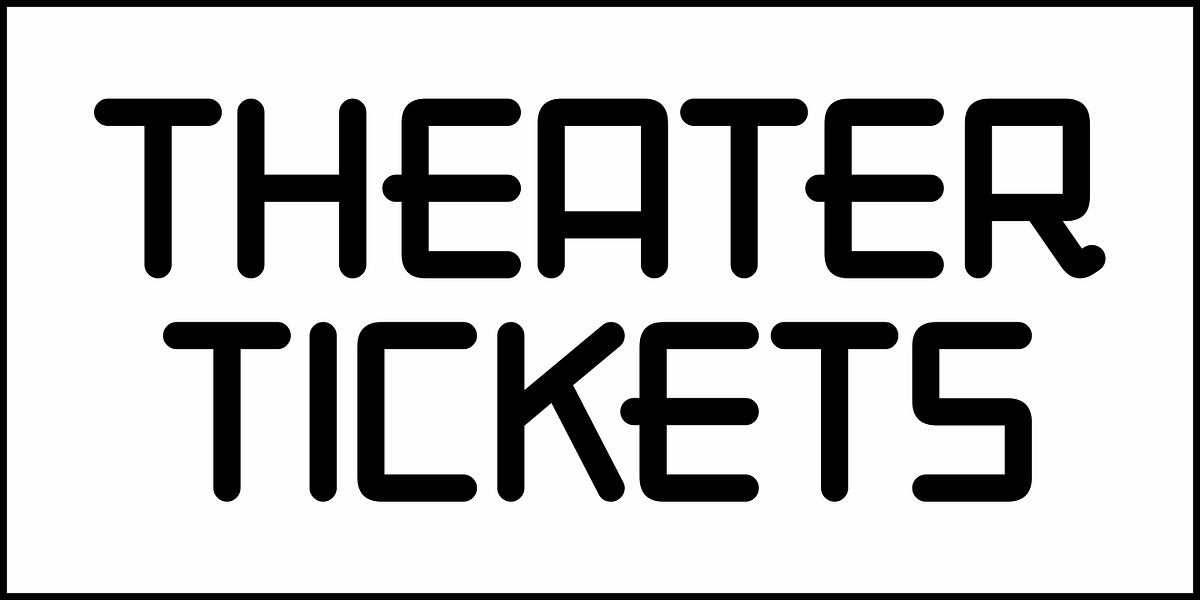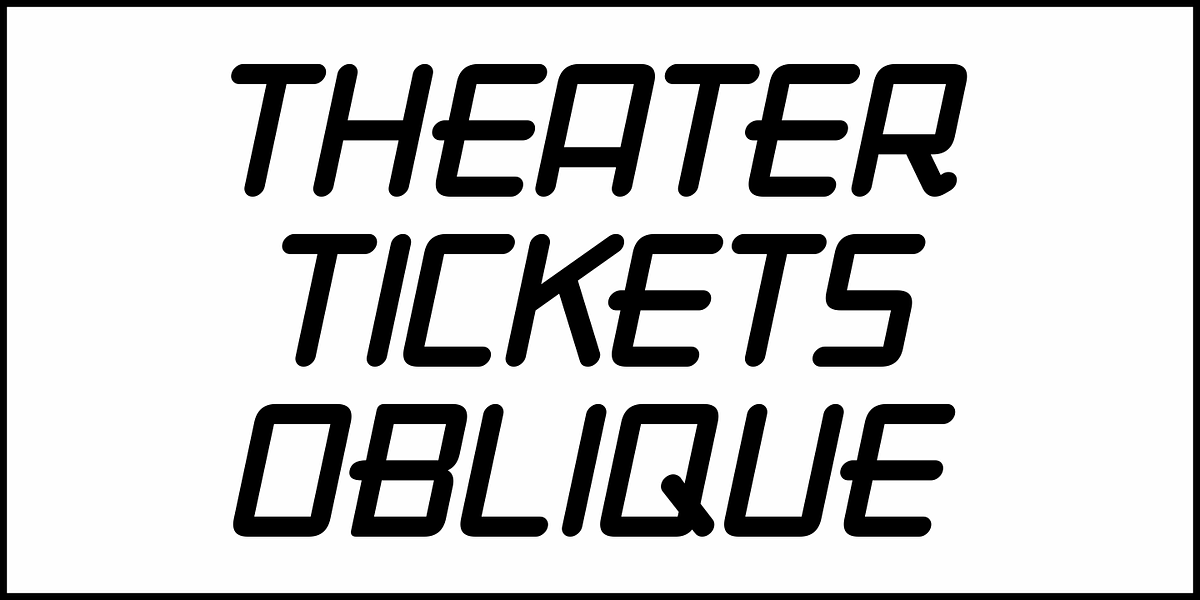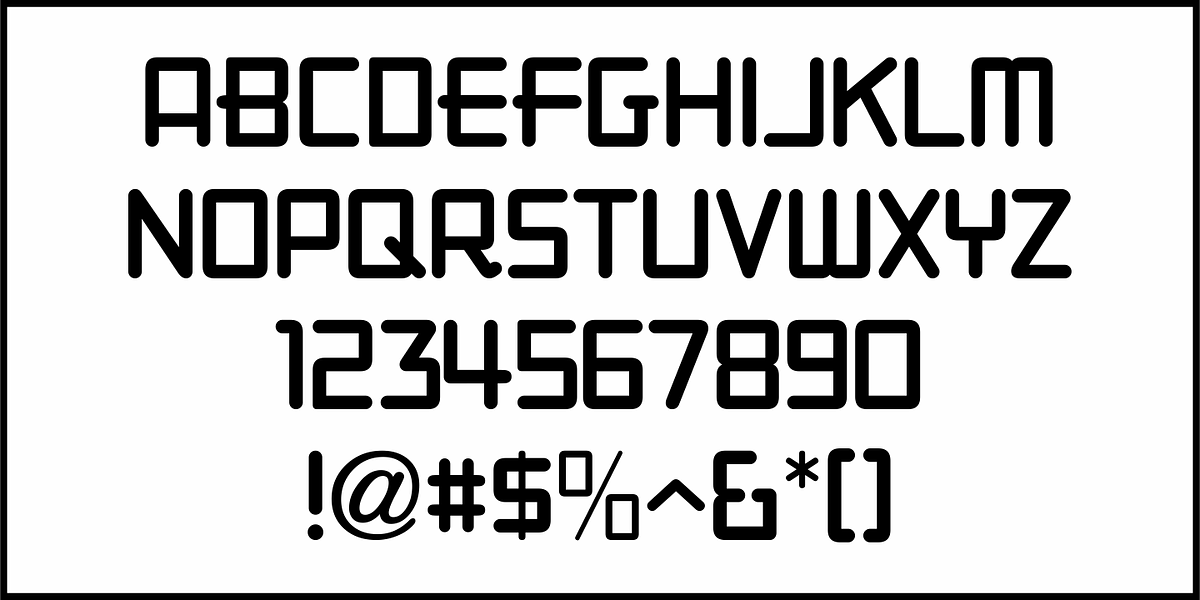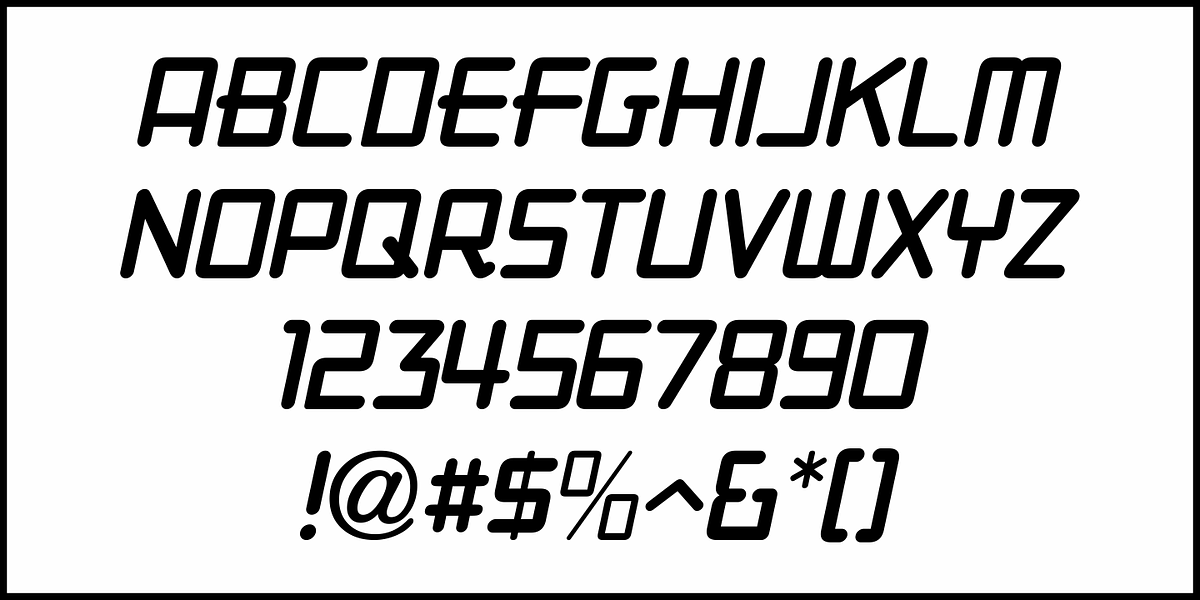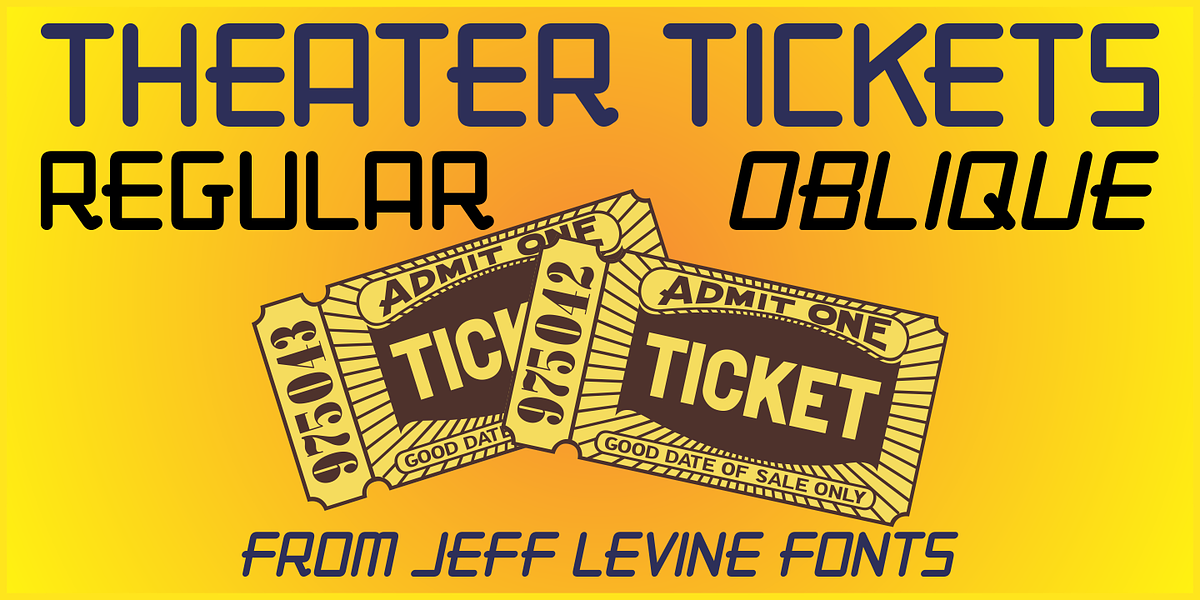
Theater Tickets JNL
Theater Tickets JNL was inspired by a photo of the marquee signage for Detroit’s Majestic Theater (built in1934), and is available in both regular and oblique versions.
The theater was renovated and restored in 1987 and its marquee replicated the original one. What’s interesting is that the signage actually resembles squared pen lettering with rounded corners.